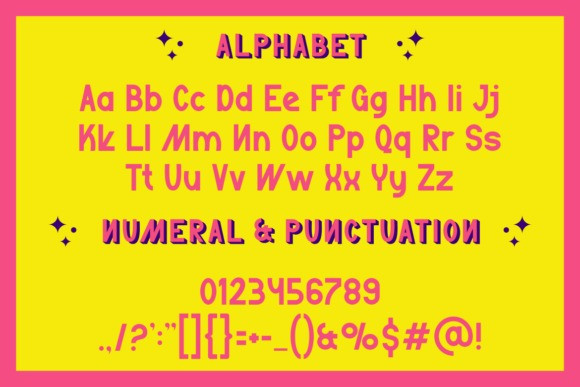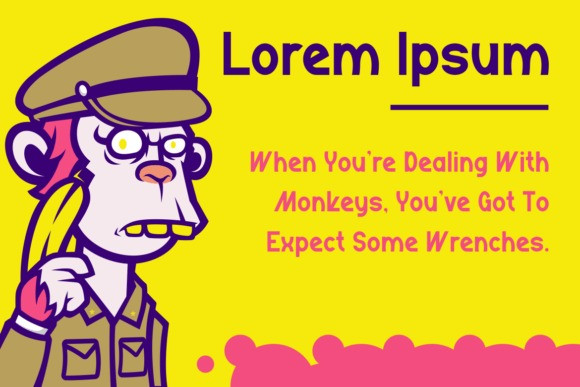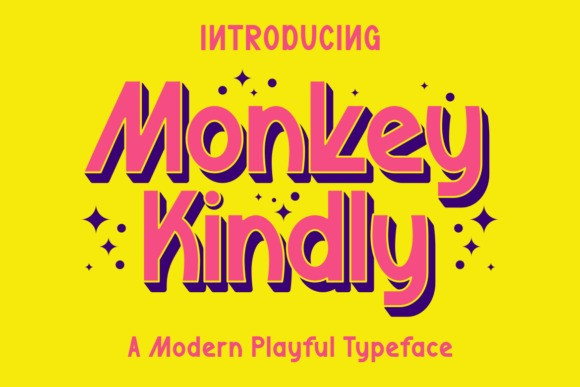
Monkey Kindly Font
Monkey Kindly Font is a modern and attractive font, making it perfect for eye-catching headlines and logos. Its versatile style makes it suitable for a variety of designs, from minimalist to bold and playful.